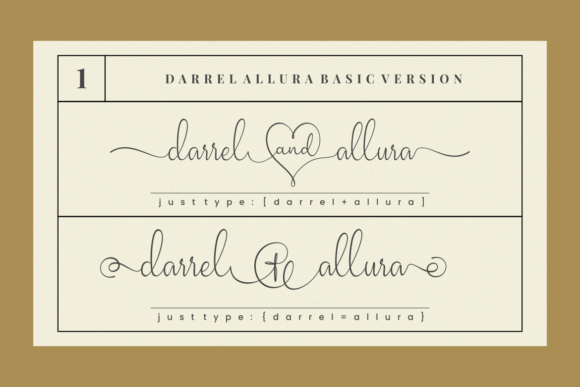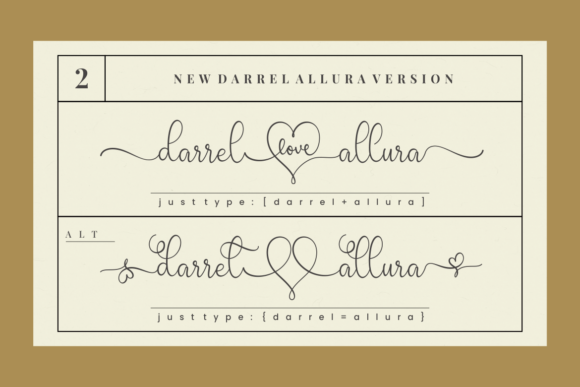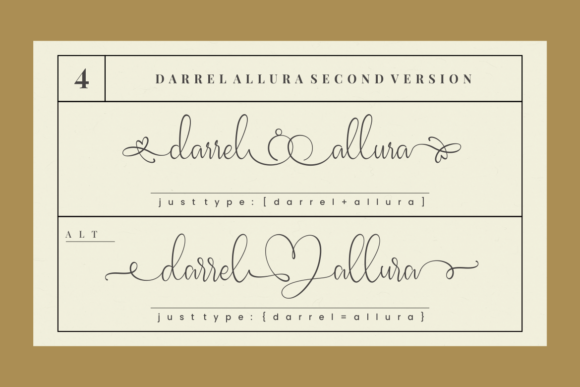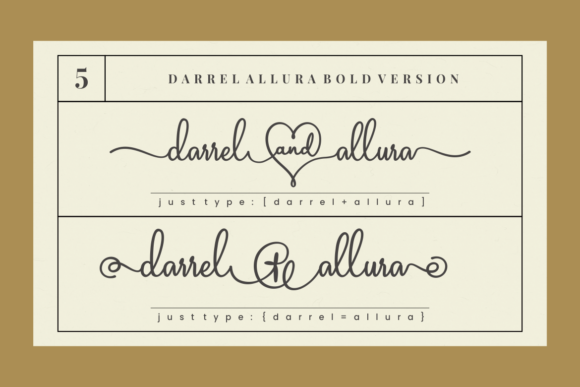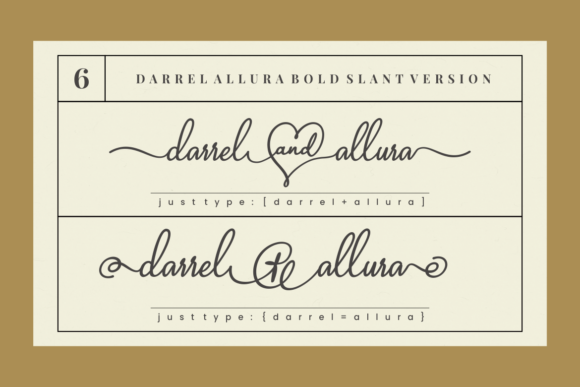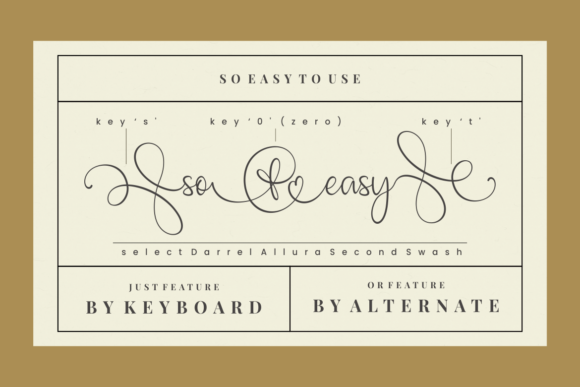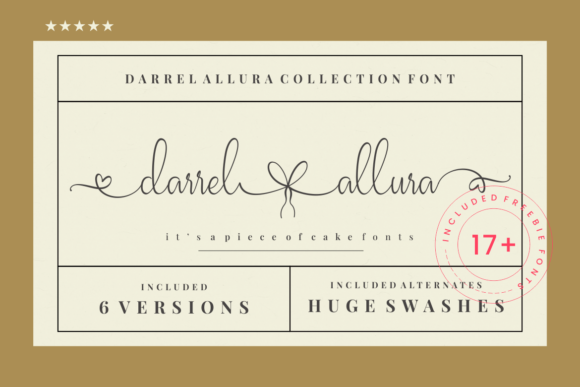
Introducing the Darrel Allura Collection Font: Elevate Your Designs with Elegance
In the world of typography, a font can make all the difference in transforming a design from ordinary to extraordinary. For designers, crafters, and DIY enthusiasts, finding the perfect script font can be a daunting task. However, with the Darrel Allura Collection Font, your search is over. This magical script font is carefully crafted with a touch of elegance, making it the perfect addition to your design arsenal.
What Makes Darrel Allura Collection Font Special?
Darrel Allura Collection Font is not just another script font; it’s a game-changer. With its elegant and flowing strokes, this font is perfect for a variety of design projects, from Instagram posts to calligraphy scripts for DIY projects. Whether you’re a professional designer or a crafting enthusiast, this font will turn any creative idea into a true piece of art.
Key Features of Darrel Allura Collection Font
- PUA Encoded: The Darrel Allura Collection Font is PUA (Private Use Area) encoded, which means you can access all the glyphs and swashes with ease. This feature makes it simple to use and customize the font to suit your design needs.
- Elegant Script: The font boasts an elegant script style that’s perfect for creating sophisticated designs. From wedding invitations to branding materials, this font will add a touch of class to any project.
- Versatile: The Darrel Allura Collection Font is versatile and can be used for a wide range of design projects, including:
- Instagram posts and stories
- Calligraphy scripts for DIY projects
- Signs and banners
The Darrel Allura Collection Font offers numerous benefits for designers and crafters, including:
- Time-Saving: With its PUA encoding, you can quickly access all the glyphs and swashes, saving you time and effort in your design process.
- Customization: The font’s elegant script style and versatile nature make it easy to customize and adapt to your design needs.
- Consistency: Using a high-quality font like Darrel Allura Collection ensures consistency in your designs, which is essential for building a strong brand identity.
Tips and Tricks for Getting the Most Out of Darrel Allura Collection Font
To get the most out of the Darrel Allura Collection Font, here are some tips and tricks:
- Experiment with different sizes and colors: Play around with different font sizes and colors to create visual interest and hierarchy in your designs.
- Combine with other fonts: Pair the Darrel Allura Collection Font with other fonts to create a unique and harmonious design.
- Use swashes and glyphs: Take advantage of the font’s swashes and glyphs to add flair and personality to your designs.
| Font Name | Darrel Allura Collection Font |
| Author | a piece of cake |